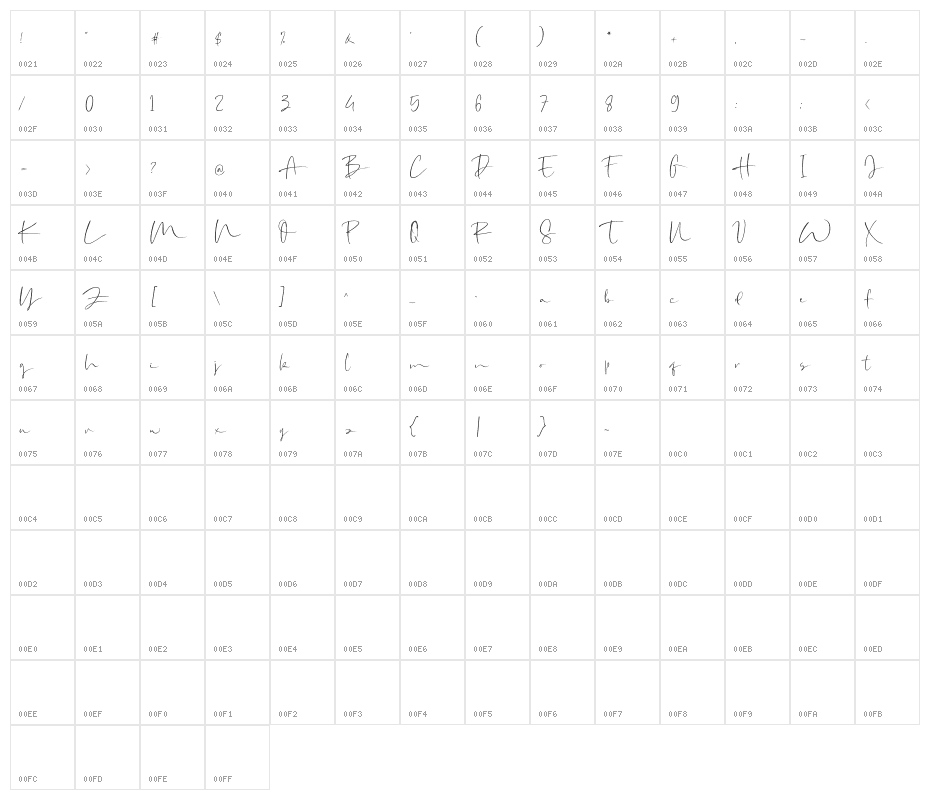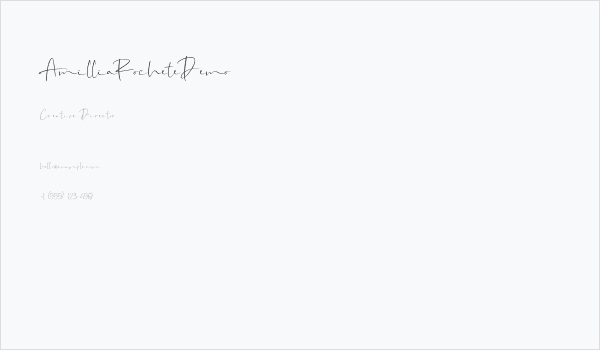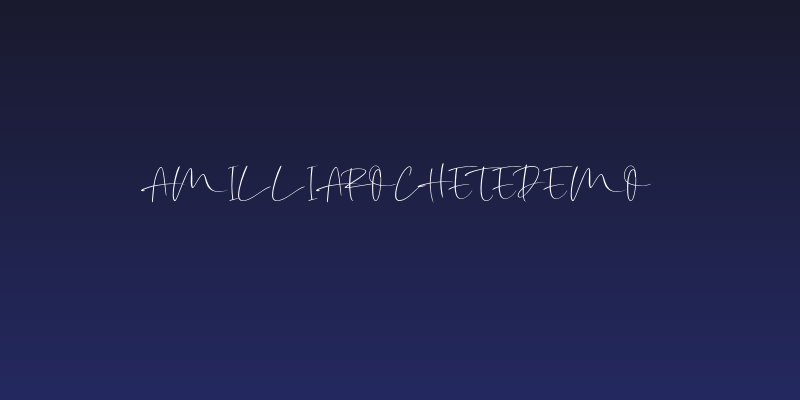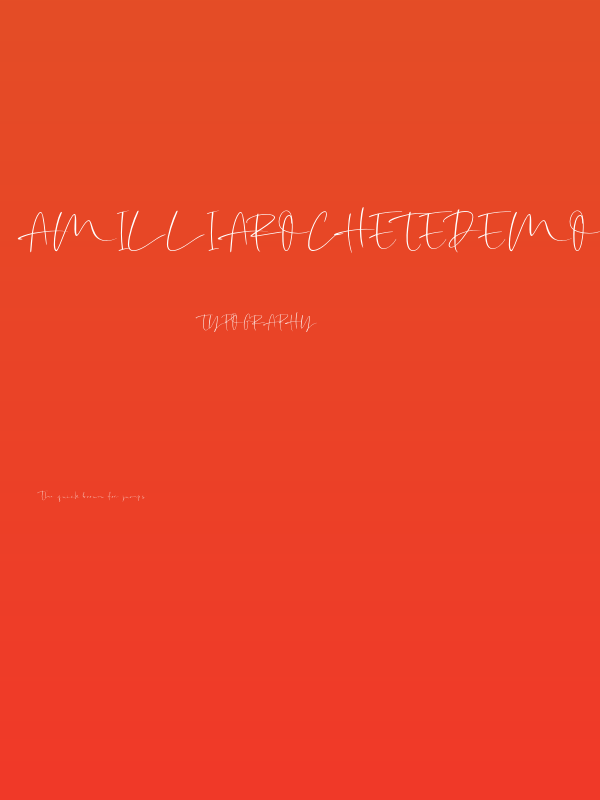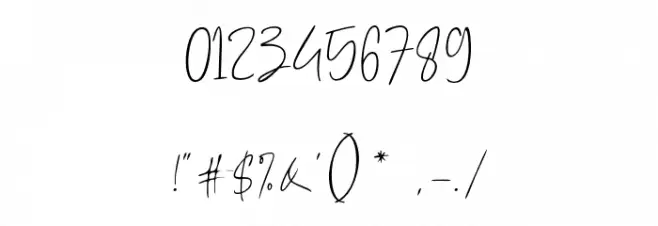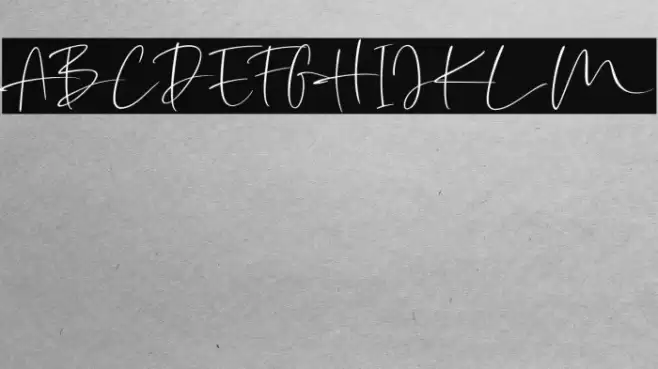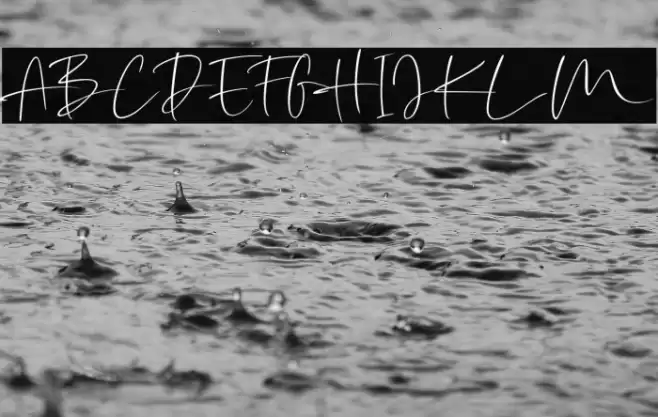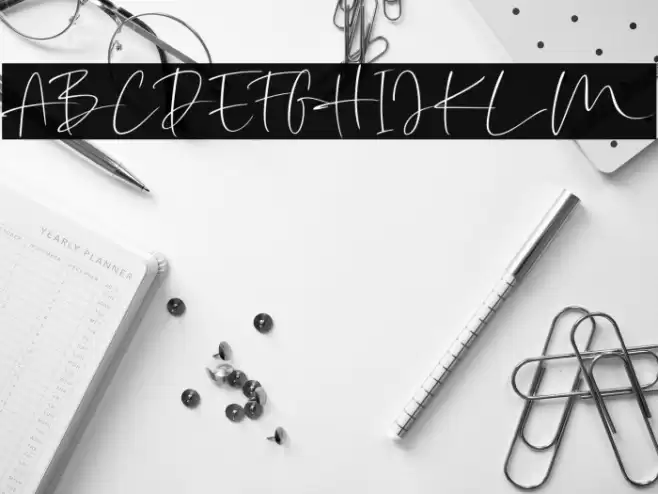
AmilliaRocheteDemo Font
This font exudes a modern, handwritten style with a touch of elegance and fluidity. The letters are crafted with a natural flow, resembling a personal signature or artistic calligraphy. The uppercase letters are bold and expressive, while the lowercase letters maintain a delicate and graceful appearance. The numerals are consistent with the overall style, offering a cohesive look. Special characters are included, enhancing the font's versatility. The strokes vary in thickness, adding a dynamic contrast that enhances readability and visual interest.
| Proposed Projects | Ideal for wedding invitations, personal branding, elegant logos, and artistic projects. |